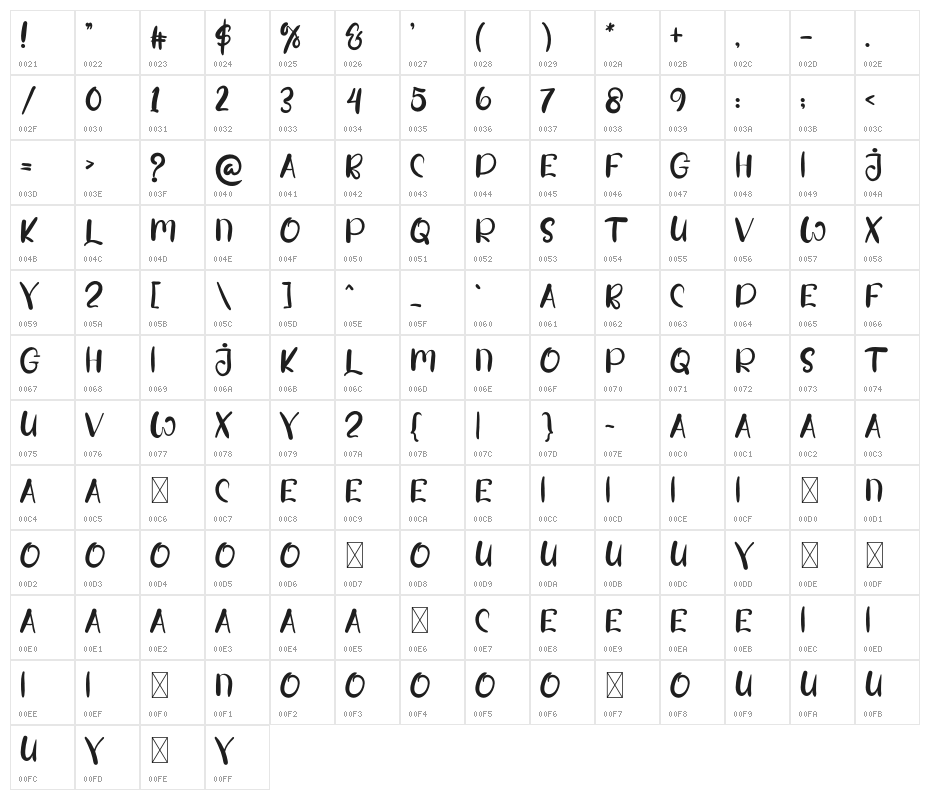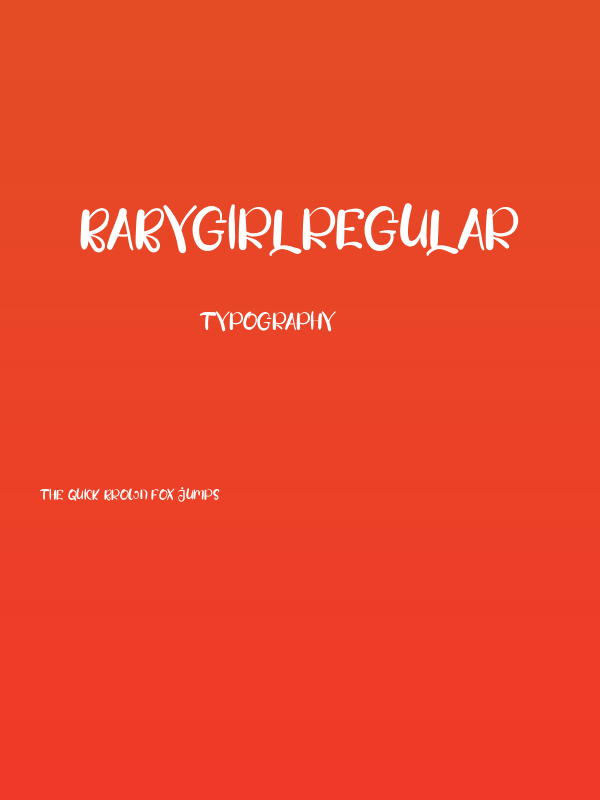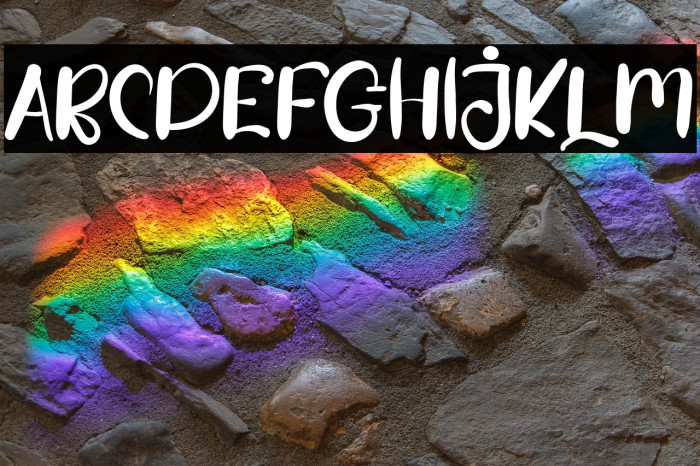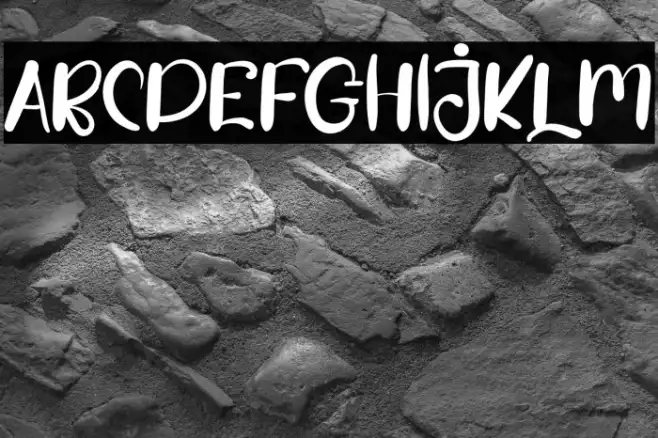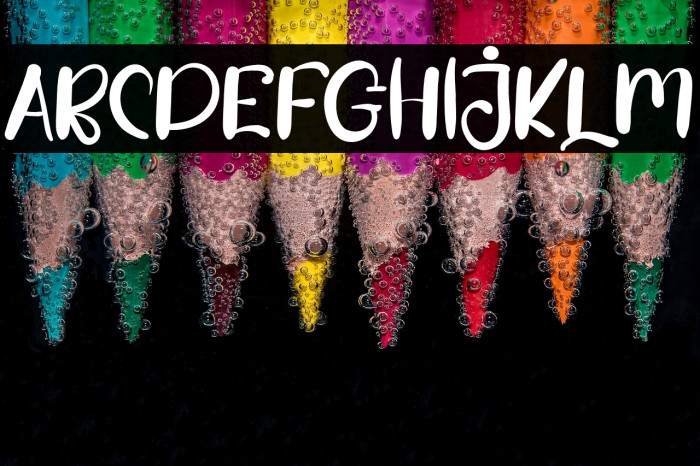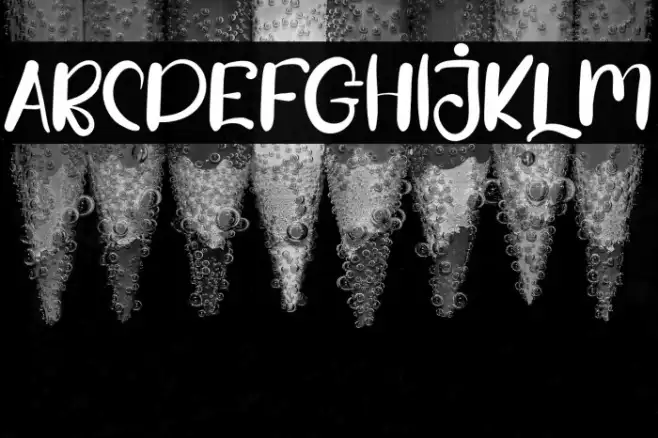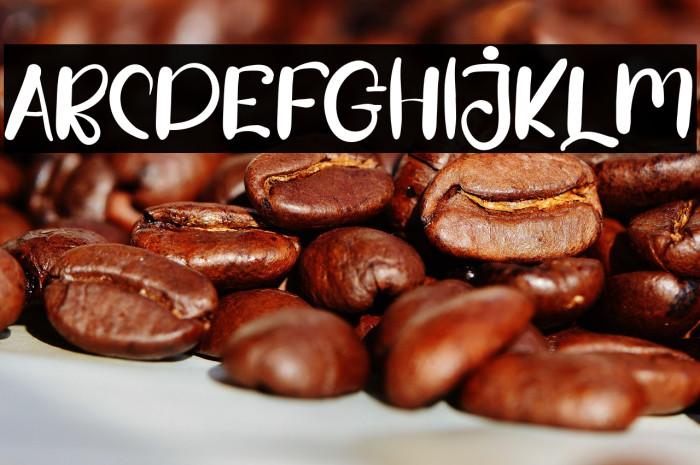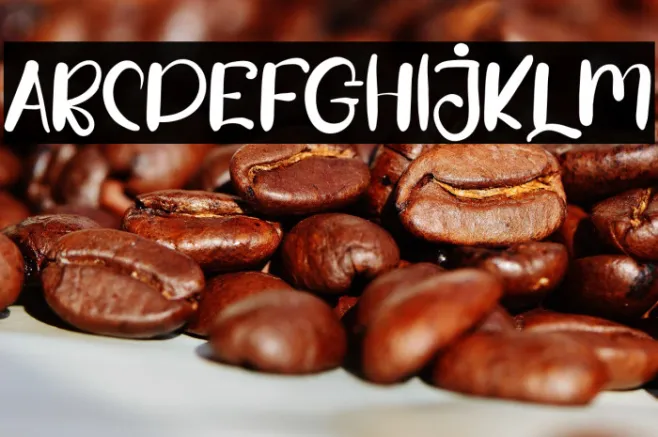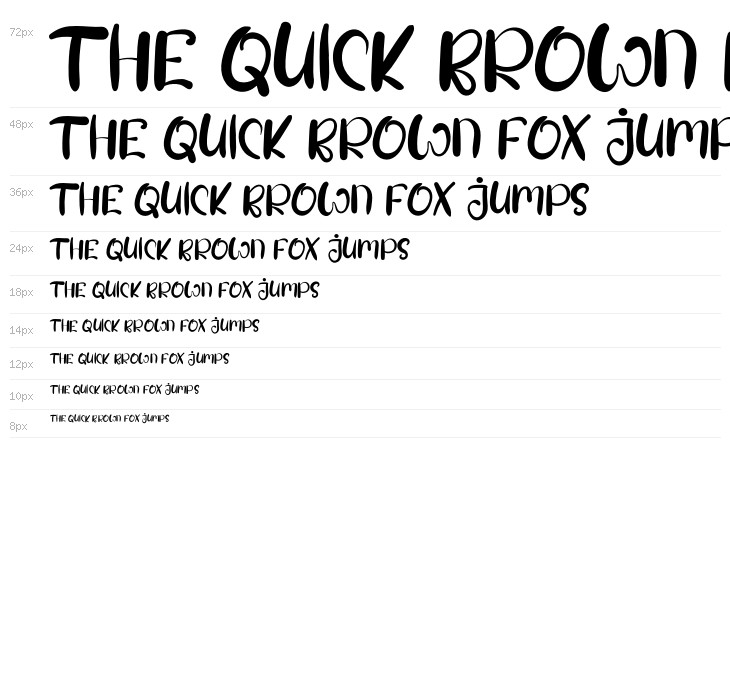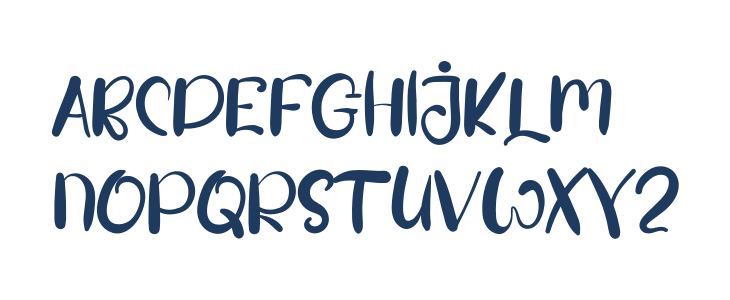
BabyGirlRegular Font
BabyGirlRegular Description
This playful and bold font features a handwritten style with a smooth, flowing appearance. The characters are rounded and slightly tilted, giving a casual and friendly vibe. The uppercase and lowercase letters maintain a consistent style, with a slight variation in size and shape that adds to the font's charm. The numbers and special characters are designed to match the overall aesthetic, ensuring a cohesive look across all text elements. The strokes are thick and uniform, providing a strong presence on the page.